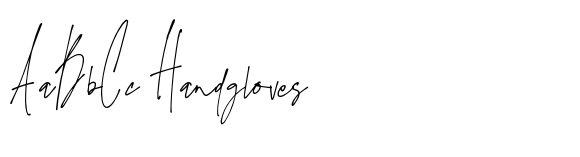
James Black
by Motokiwo
James Black Font Family was designed by Anton Cahyono and published by Motokiwo. James Black contains 1 styles.
James Black, a signature milli pen font with classy handwriting style. This is a perfect font for business, for your personal feels, for everything about you smart people! You will get a casual handwritten font with some ligatures that will give you more taste of high class personality.